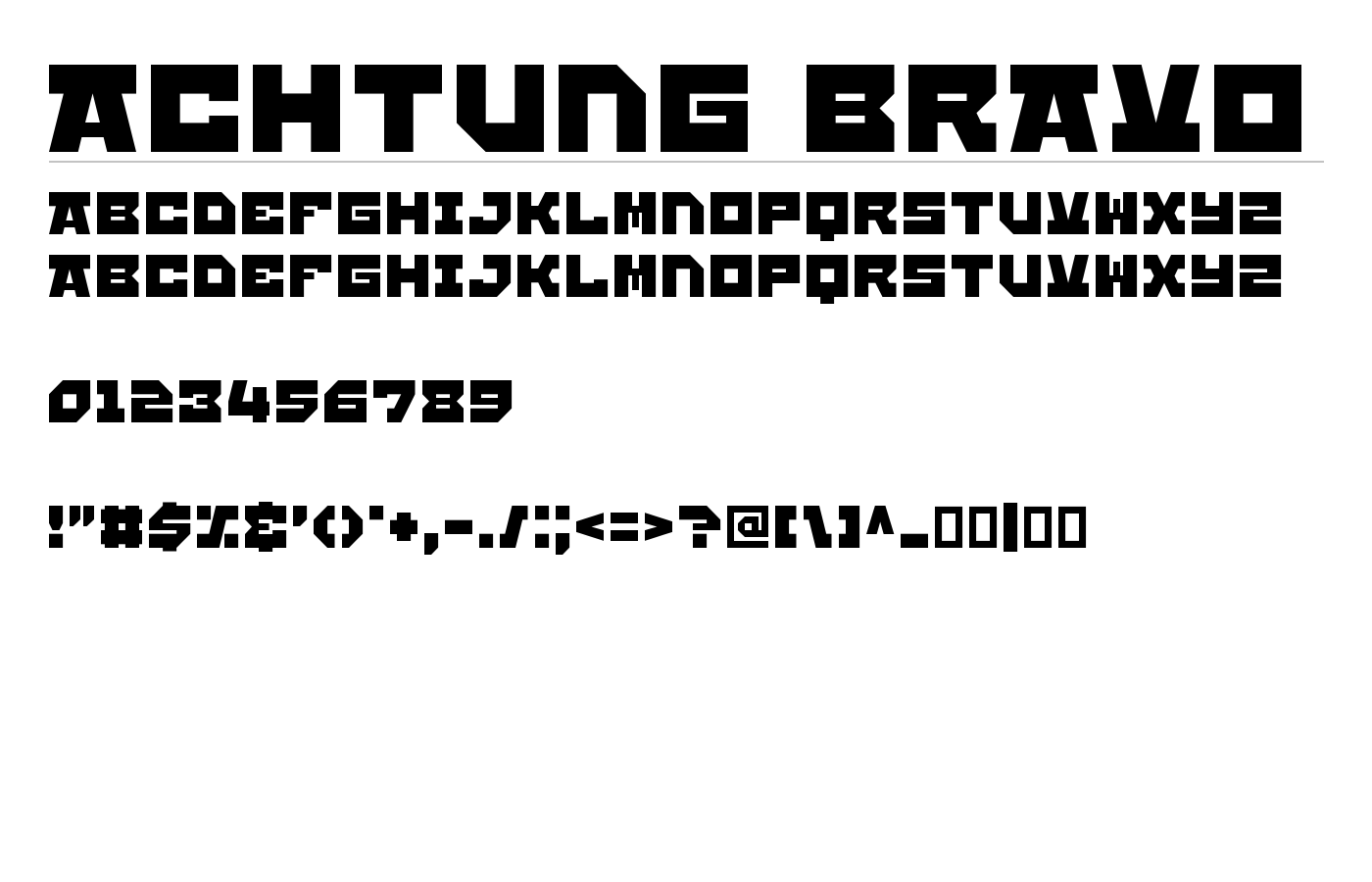
Achtung Bravo is a bold, blocky sans serif font with a strong, geometric design that commands attention. Its heavy weight, sharp angles, and uniform stroke widths give it a sturdy, industrial feel, making it perfect for impactful headlines, posters, or branding that needs a tough, modern edge. This font works well in contexts where a striking, no-nonsense presence is desired, such as sports, gaming, or urban-themed projects.
Achtung Bravo Font
About Achtung Bravo Font